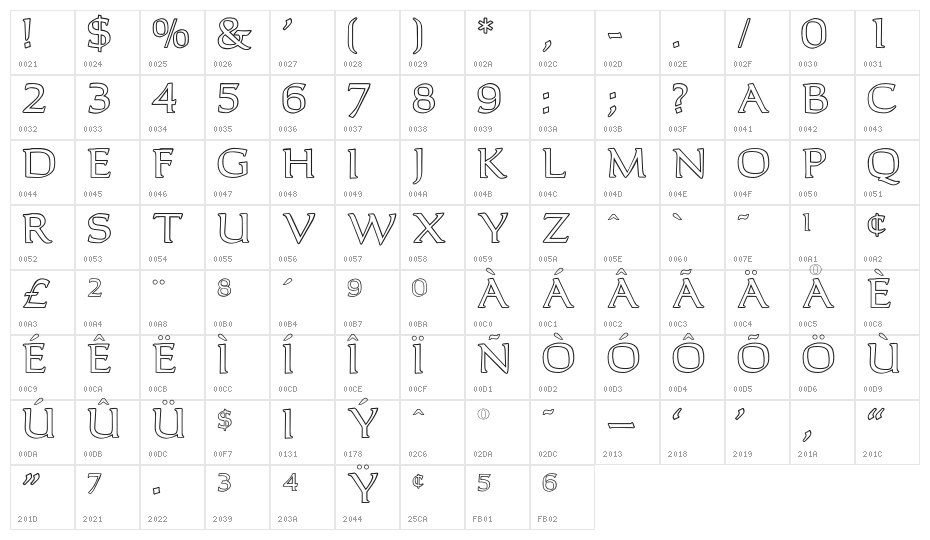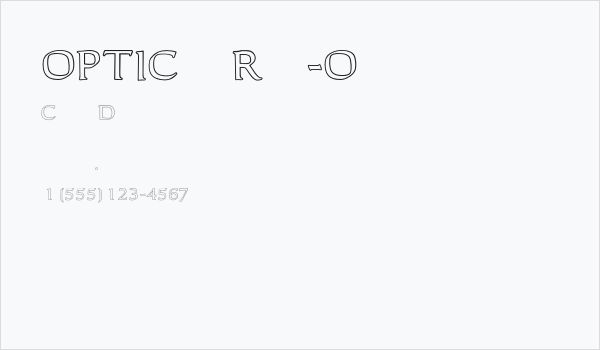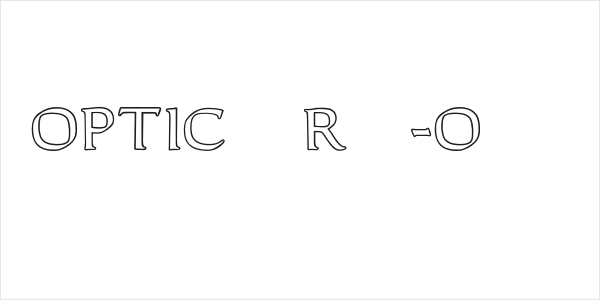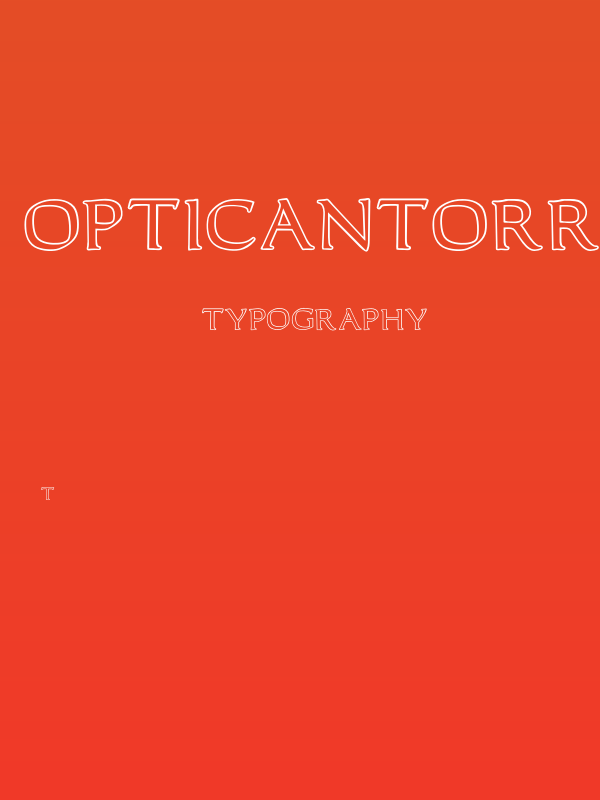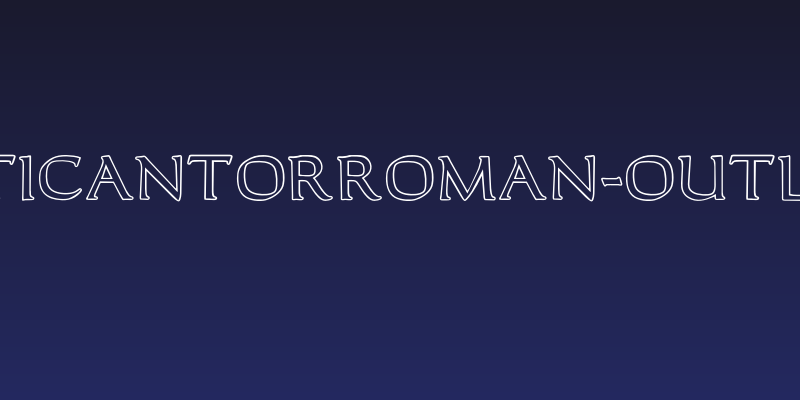
OPTICantorRoman-Outline Font
OPTICantorRoman-Outline Description
This font features a classic serif style with a unique outline design, giving it a distinctive and elegant appearance. The letters are well-proportioned with a traditional serif structure, yet the outline adds a modern twist. The uppercase and lowercase letters maintain a consistent style, while the numerals and special characters are crafted to match the overall aesthetic. The font's outline nature provides a sense of openness and lightness, making it suitable for creative and artistic projects. Its clean lines and balanced proportions ensure readability while adding a decorative touch.
| Use Case | Headlines, Logos, Decorative text |
| Proposed Projects | Ideal for use in branding, headlines, posters, and invitations where a touch of sophistication is desired. |